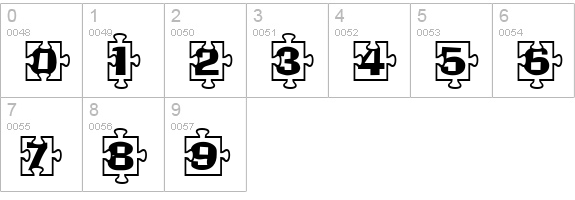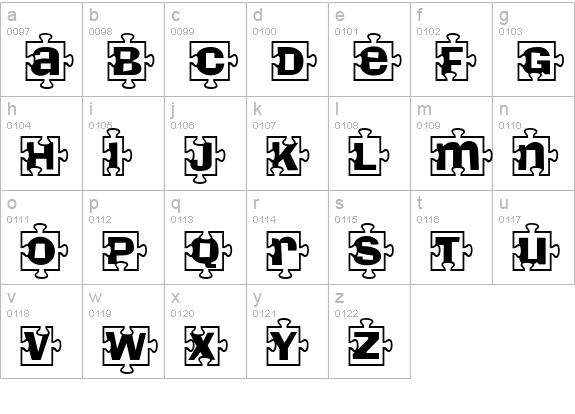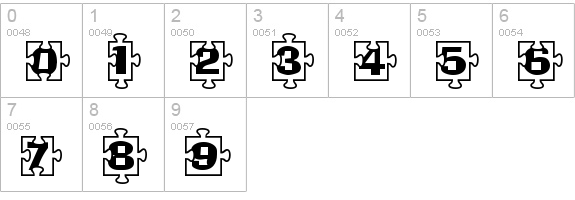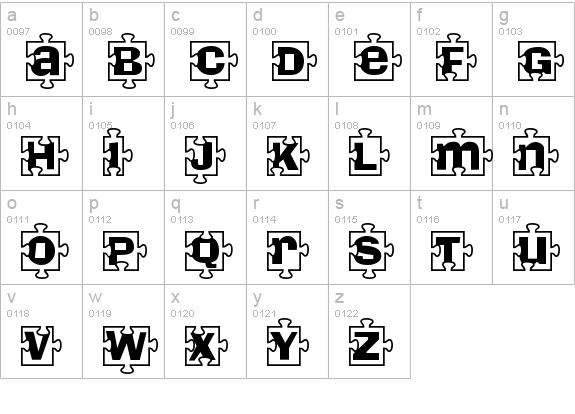
PiecesW Font Details
Introducing PiecesW font, a modern and stylish typeface that will add a touch of sophistication to your design projects. This versatile font features clean lines and a contemporary aesthetic, making it perfect for a wide range of applications, from branding to editorial design. What sets PiecesW font apart is its unique character shapes and elegant letterforms, which give your text a distinctive and eye-catching look. Whether you're designing a logo, poster, or website, this font will help you stand out from the crowd and make a lasting impression. Best of all, PiecesW font is completely free to download at FontsMarket.com, making it accessible to designers of all levels. So why wait? Add this beautiful typeface to your collection today and elevate your designs to the next level.